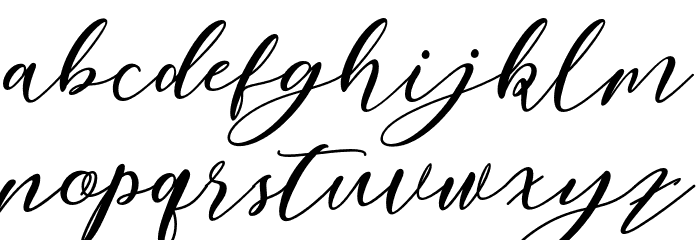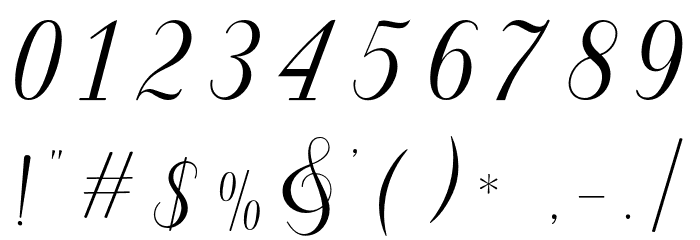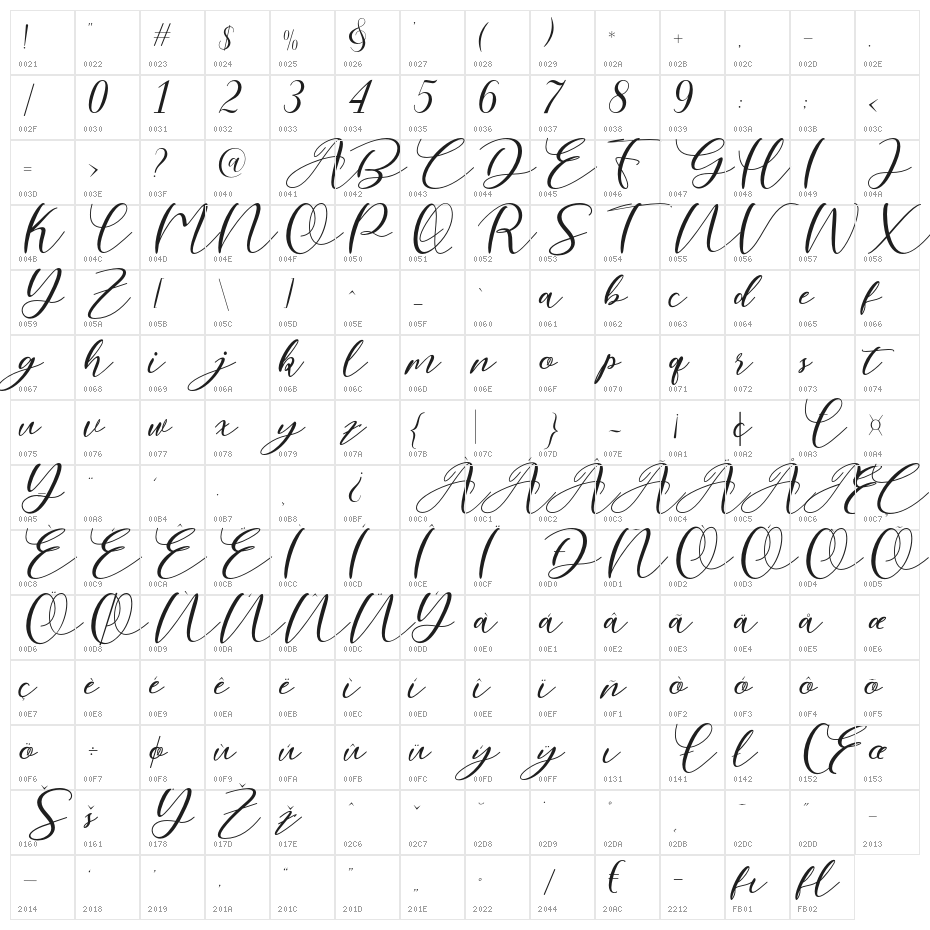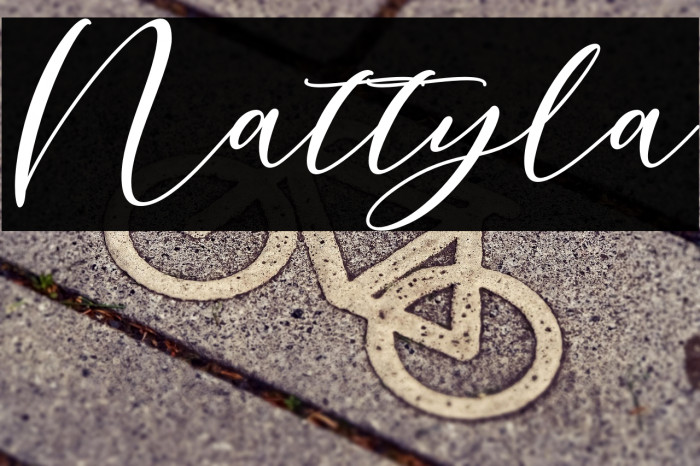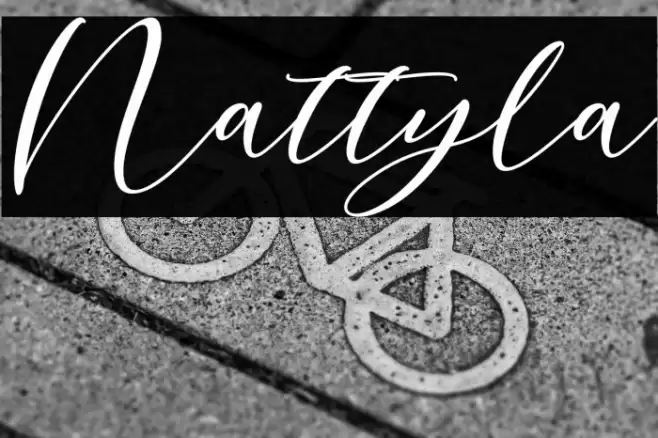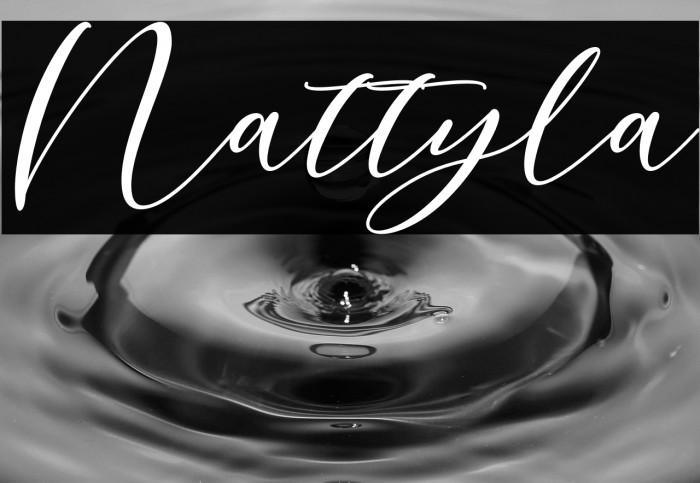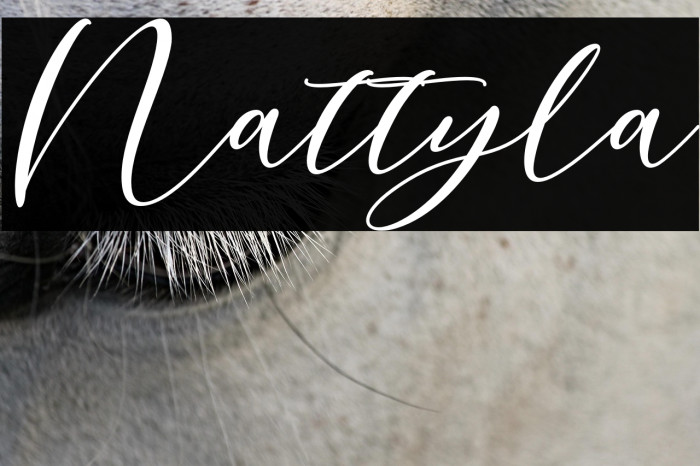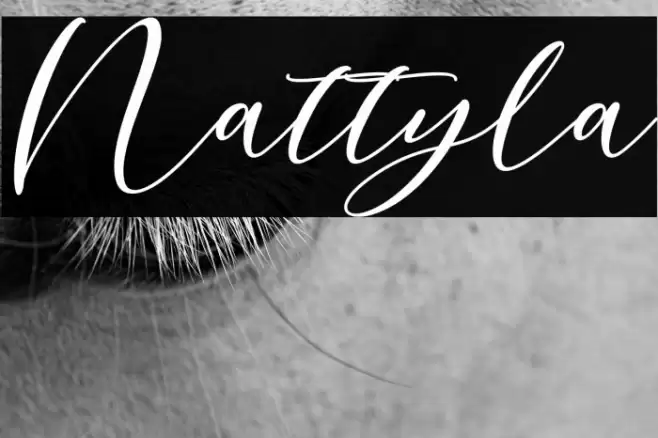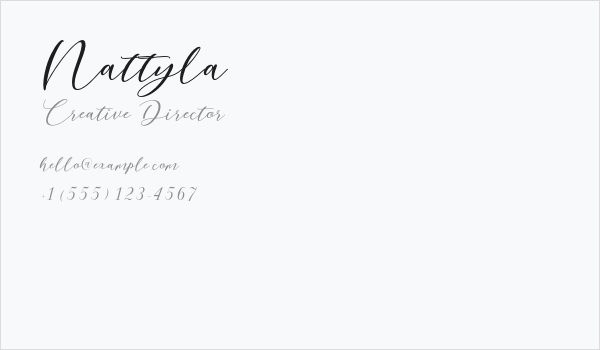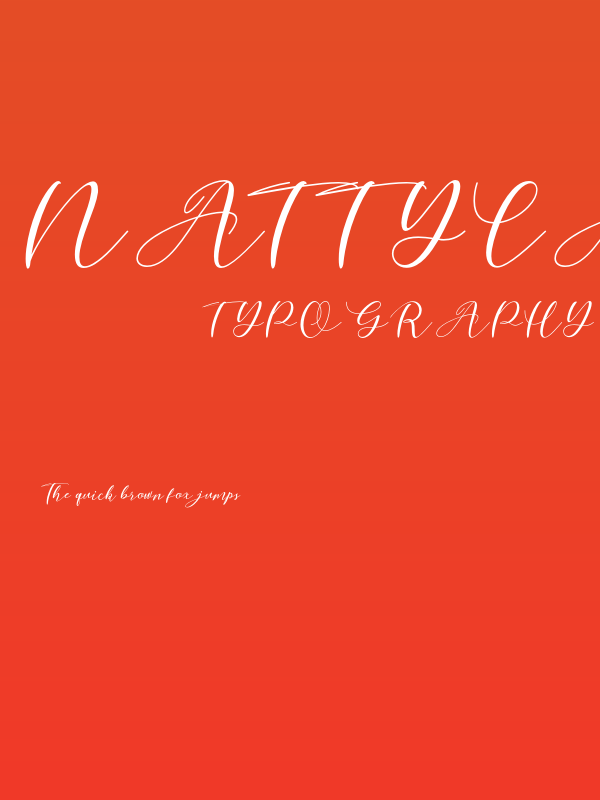
Nattyla Font
This font exudes elegance and sophistication with its flowing, cursive style. The uppercase letters are gracefully connected, featuring smooth curves and delicate loops that give a sense of fluidity and motion. The lowercase letters maintain a consistent style, with elongated ascenders and descenders that enhance its elegant appearance. The numerals are distinct and maintain the cursive theme, adding a touch of class to any numerical representation. Special characters are thoughtfully designed to complement the overall aesthetic, making this font ideal for formal invitations, branding, and decorative purposes.
An elegant cursive font with flowing, sophisticated characters.
- Font: Nattyla
- Proposed Projects: Ideal for wedding invitations, luxury branding, elegant stationery, and decorative signage.
- Category: Script
- Overall Style: Elegant
- Use Case: Headlines, Logos, Invitations